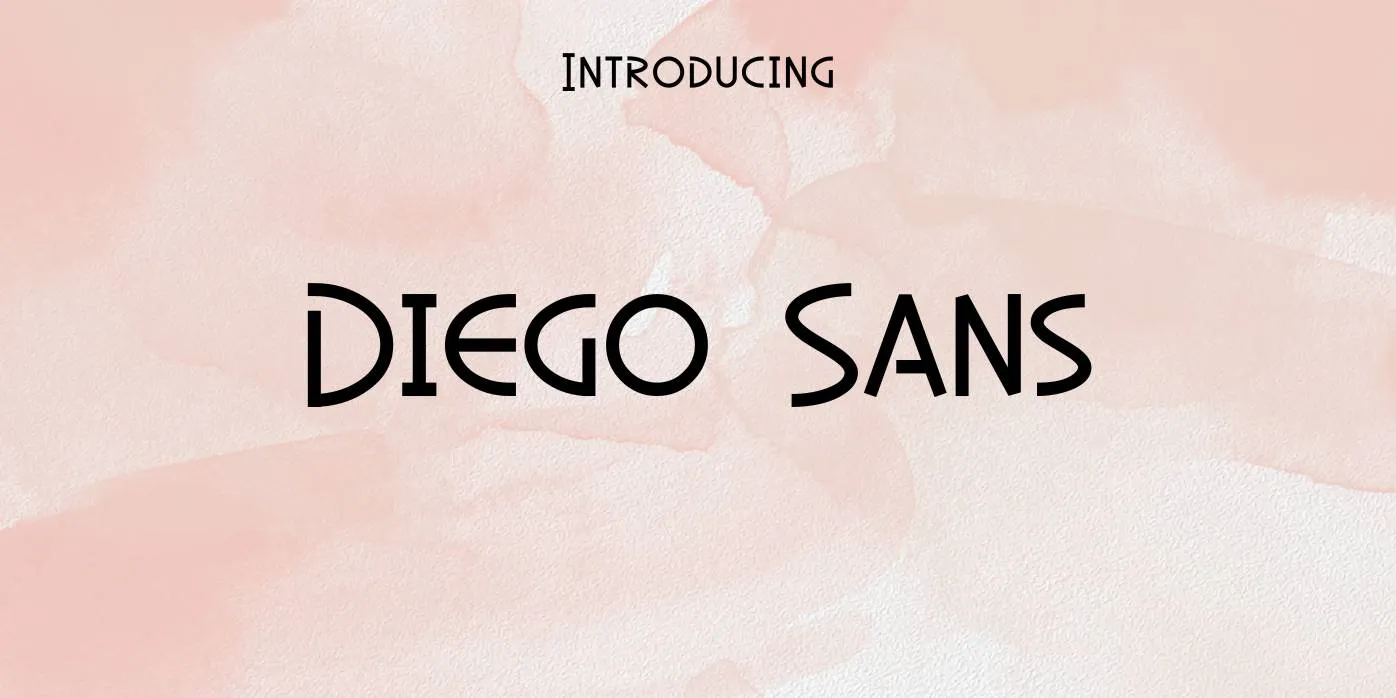
Diego Sans Font
Today we talk about another amazing typeface Diego Sans Font. This stunning font was designed by Derek Vogelphol. This unique font is inspired by the Dico Art lettering form. You can make so many different projects using this font.
It contains 271 characters, 235 glyphs, and 1000 units per Em. Unicode supported by this font is 2.0 and BMP only. The weight of the font is light and its width is medium(normal). An online generator tool is available for this font which you can change your simple text into a stylish look without downloading the font.
You can use this font for pairing carlton font to give a more attractive look to your projects. This font can make interesting projects by using this font. It has eight different styles Regular, Oblique, Condensed Regular, Outline Regular, Shaded Regular, Condensed Oblique, Outline Oblique, and Shaded Oblique. You can make amazing projects by using this font.
Usage You can make so many different projects by using this font it has many features like characters, symbols, numbers, special characters, small letters, capital letters, and punctuations. This font can be used to design websites and graphic designs can also made with this font. You can use this font for making sign boards, maps, road signs, and all types of social media posts. You can make attractive logos and headlines.
This typeface is also a good choice for making new designs in Adobe Photoshop, CSS, and Canva. Book covers, magazine covers and branding can also be made by using this font. It is considered a very elegant font for both print and digital media. You can also use this font for making greeting cards, invitation cards for birthdays, and posters as well.
It is a very amazing font inspired by the Art Deco. Is Diego Sans font good for a magazine cover? Yes, it is a perfect choice for making attractive magazine covers. It can be used to design many other projects like making posters, banners, and much more How can I get Diego Sans font?